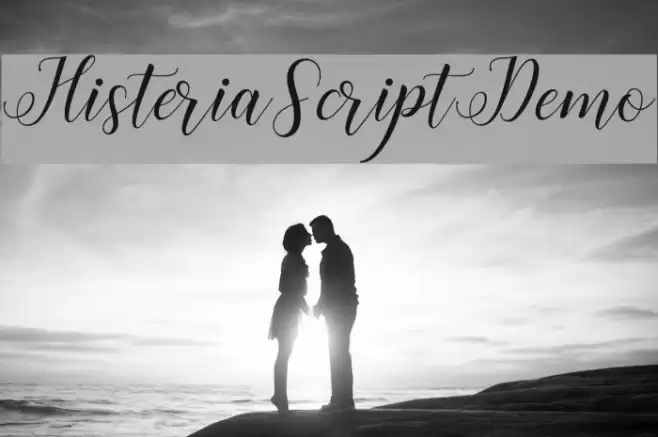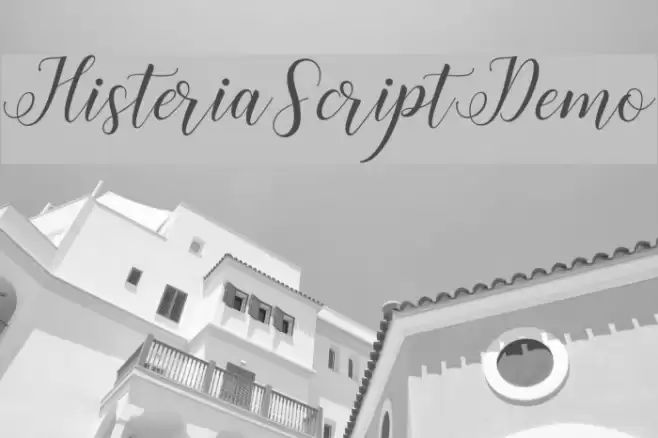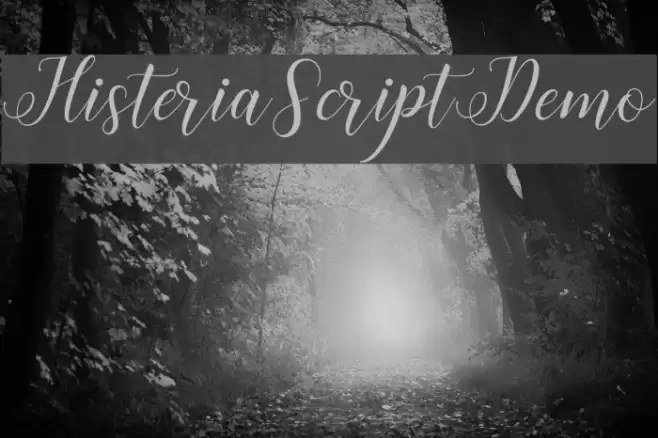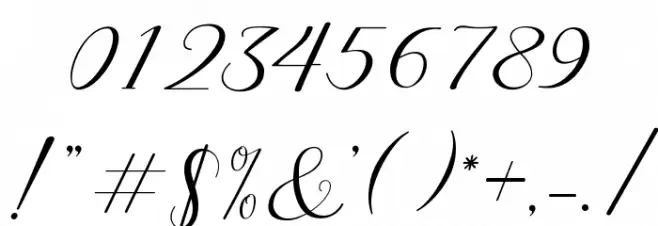
HisteriaScriptDemo Font
HisteriaScriptDemo Description
This elegant script font features flowing, cursive letterforms with intricate swashes and flourishes. The uppercase letters are particularly ornate, with loops and curves that add a touch of sophistication and grace. The lowercase letters maintain a consistent style, offering a harmonious blend of readability and decorative appeal. The numerals and special characters are designed to complement the alphabet, ensuring a cohesive look across all text. This font exudes a sense of luxury and refinement, making it ideal for formal invitations, branding, and any project that requires a touch of elegance.
An elegant script font with flowing, ornate letterforms and intricate swashes from Uncategorized fonts.
- Proposed Projects: Ideal for wedding invitations, luxury branding, elegant stationery, and decorative headlines.
- Overall Style: Elegant, Decorative
- Use Case: Headlines, Invitations, Branding